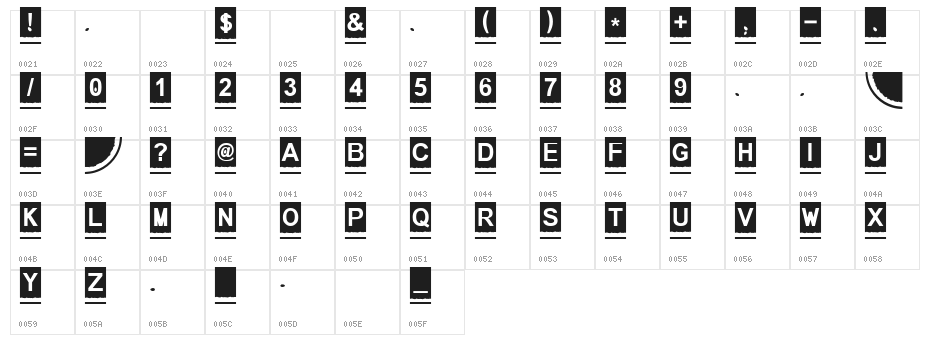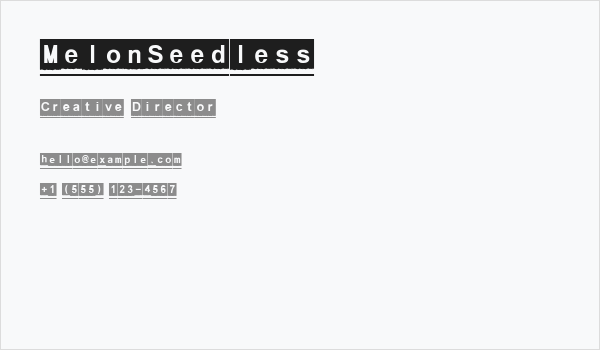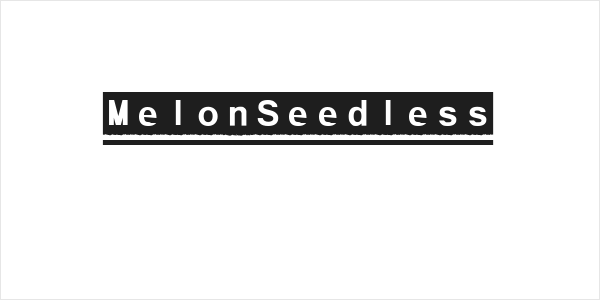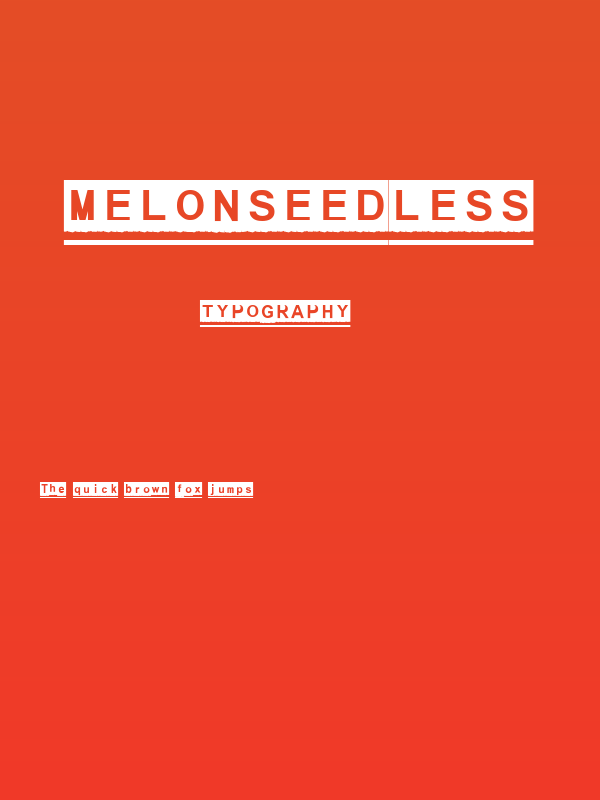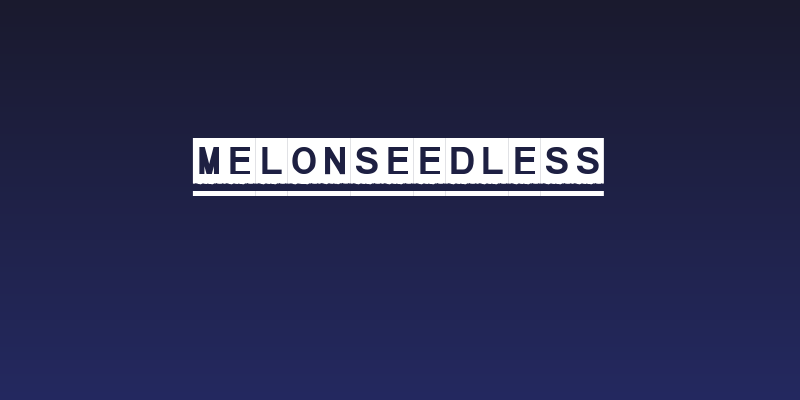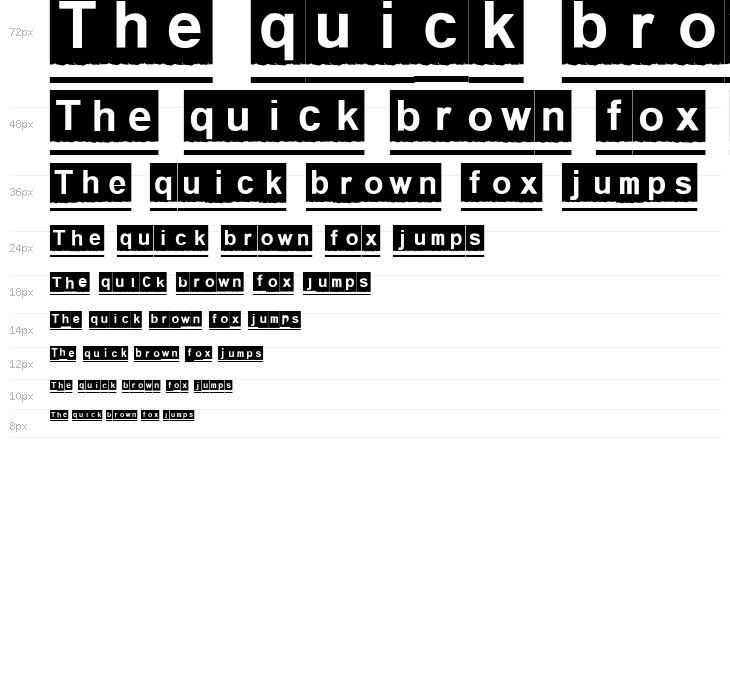
MelonSeedless Font
MelonSeedless Description
This font features a bold and clean sans-serif style with a strong presence. Each character is well-defined and evenly spaced, making it highly legible. The uppercase letters are uniform in height, while the lowercase letters maintain a consistent baseline. The numerals are clear and distinct, matching the overall boldness of the alphabet. Special characters are included, maintaining the same weight and style as the letters and numbers. The font's simplicity and clarity make it versatile for various design applications.
| Use Case | Headlines, Logos, Signage |
| Proposed Projects | Ideal for branding, signage, headlines, and any project requiring clear and impactful text. |